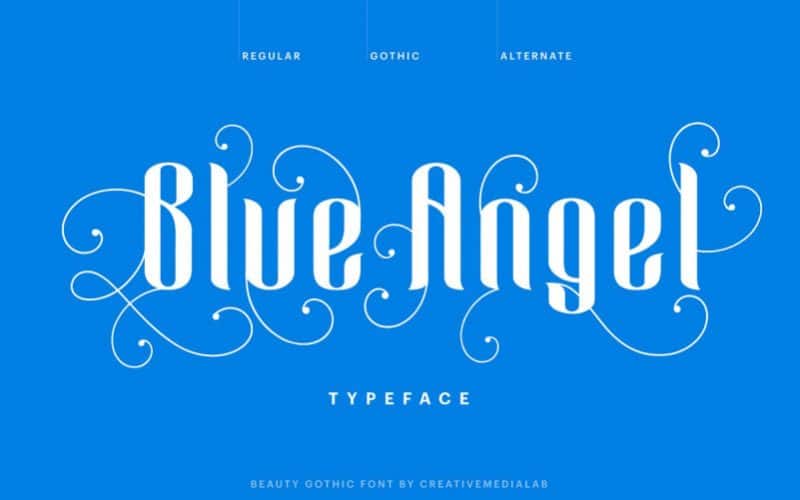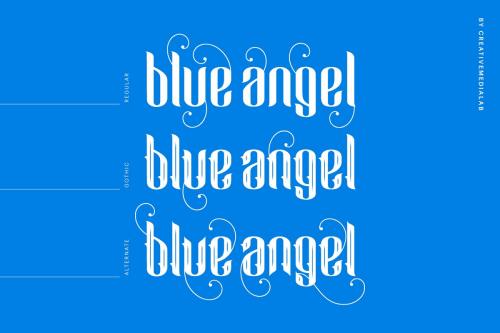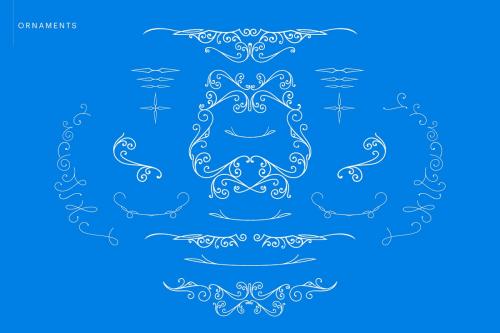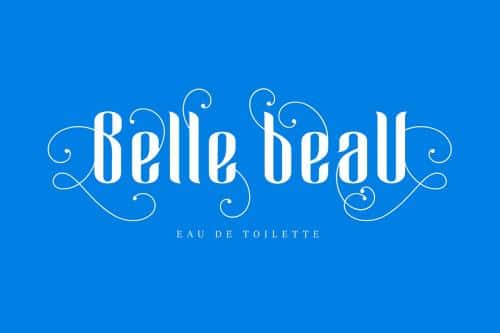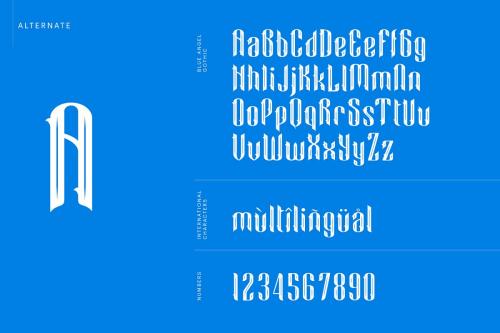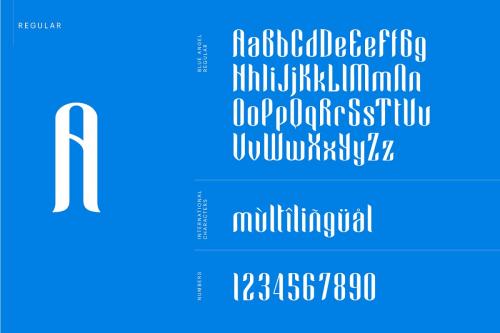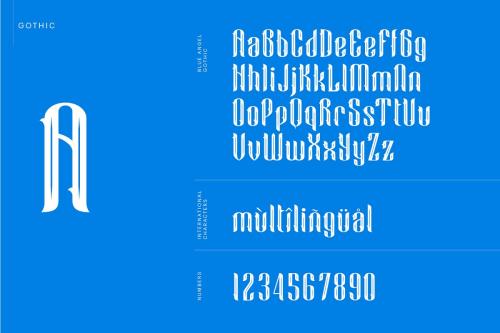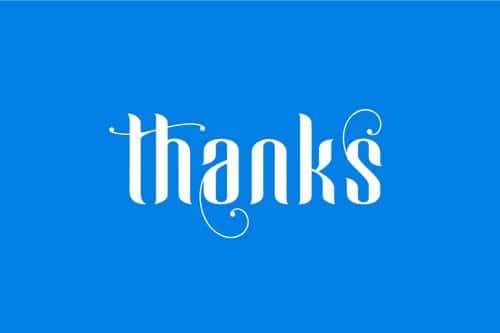
Blue Angel is a Beauty font consisting of three styles plus ornament. Each character has few alternate sets to allow designer combine the floral curve into something beauty and unique lettering project.
Comes with set of ornaments that you can arrange to create an unique luxury badges or attached to your design
Blue Angel is suitable for wide range of design concepts, from Victorian style, clothing label, packaging, poster, vintage to black gothic metal font 🙂
- Designer: creativemedialab